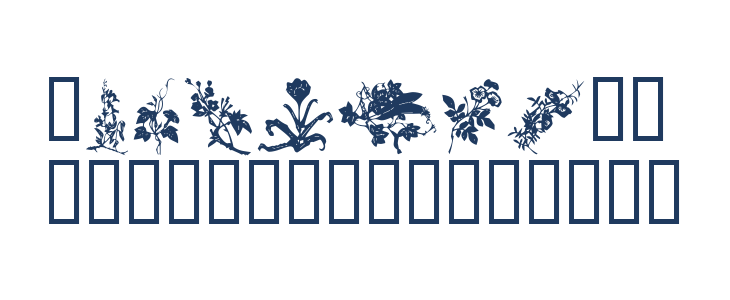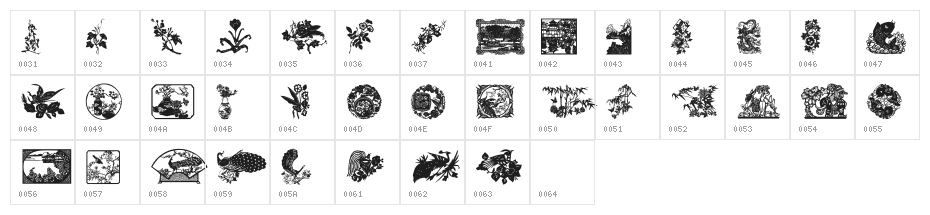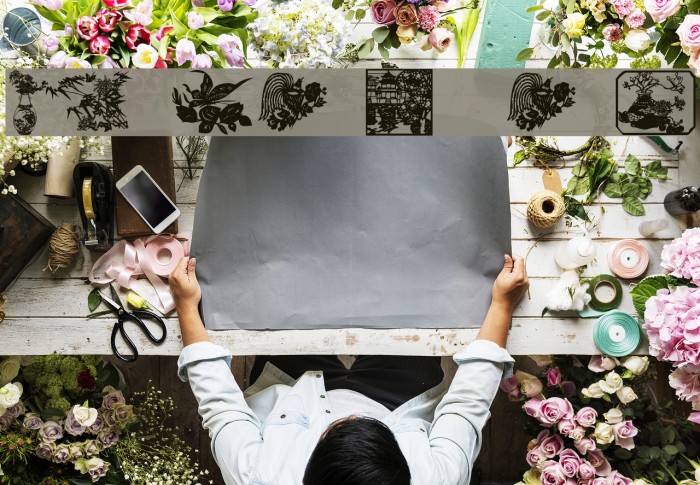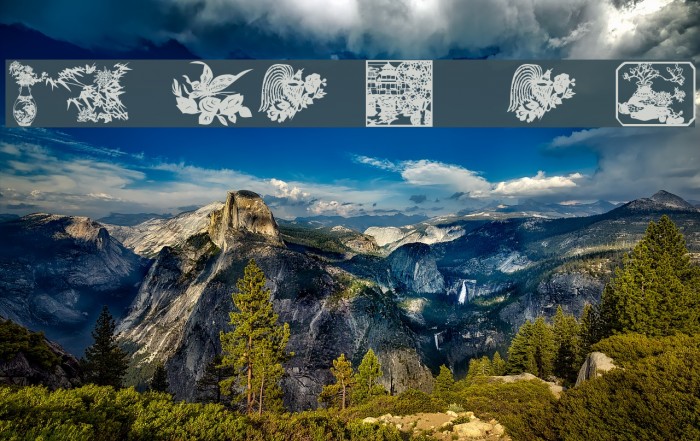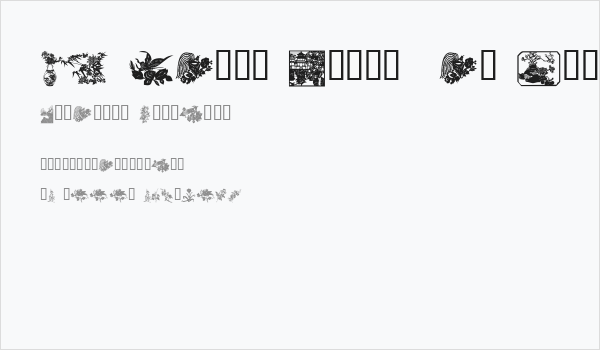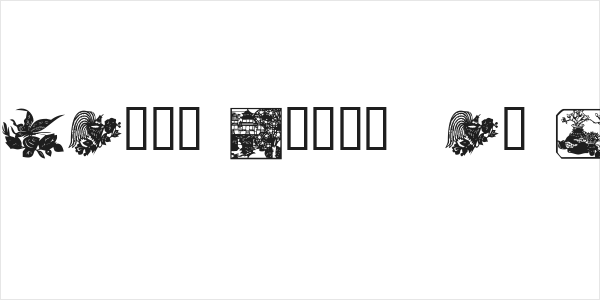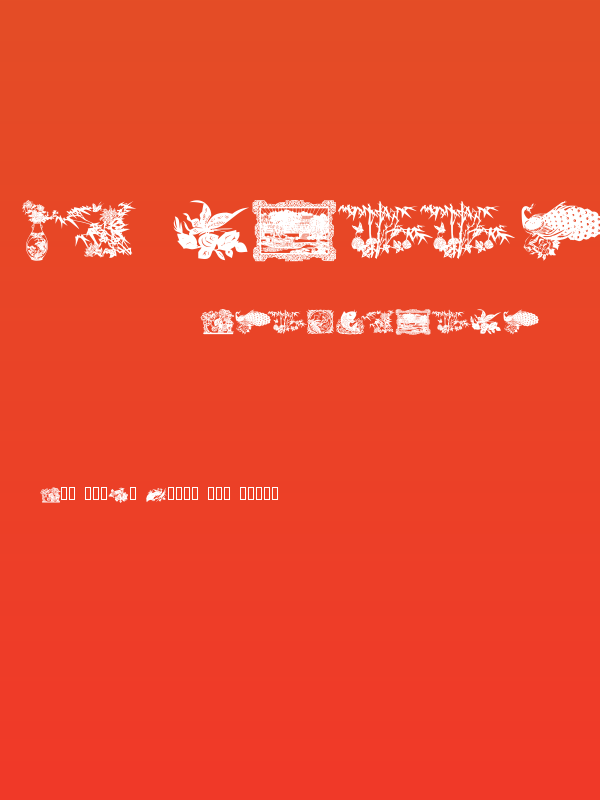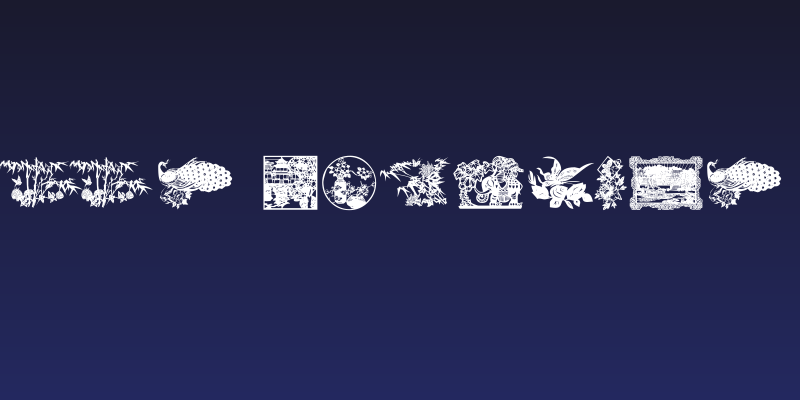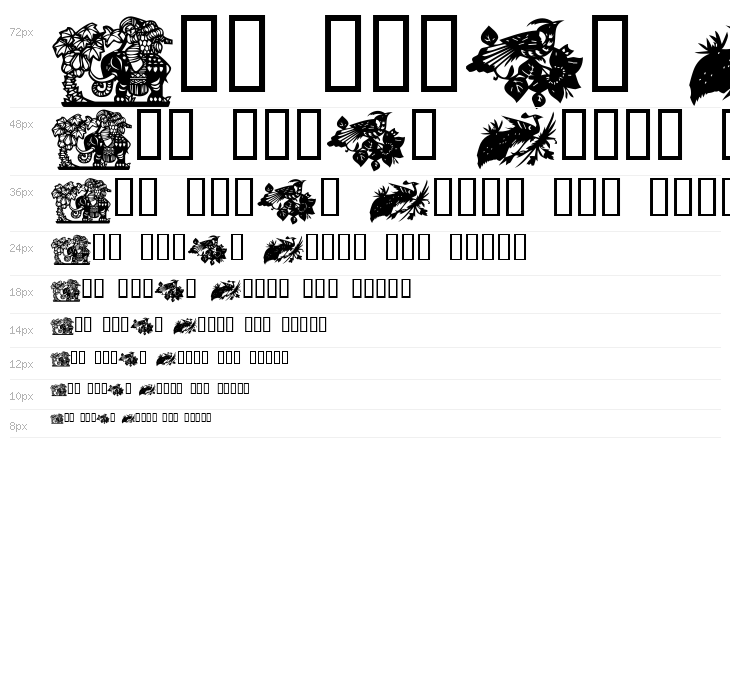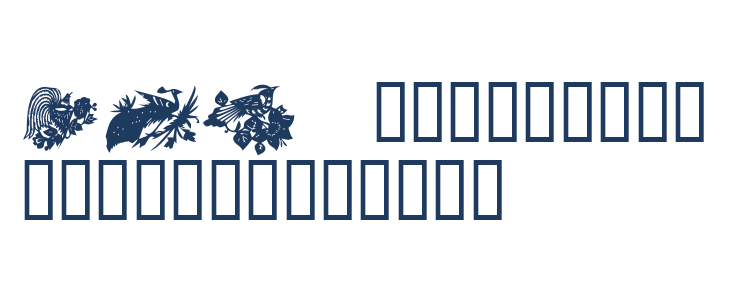
KR Happy Birthday Julie Font
KR Happy Birthday Julie Description
A highly decorative font composed of intricate black-and-white illustrations, including floral motifs, animals, and ornate scenes. Each character is represented by a unique pictorial design rather than traditional letterforms, making it more of a dingbat or pictogram set.
| Overall Style | Decorative, Ornate, Thematic |
| Use Case | Decorative elements, Borders, Themed graphics |
| Proposed Projects | Greeting cards, invitations, scrapbooking, decorative borders, themed event materials. |